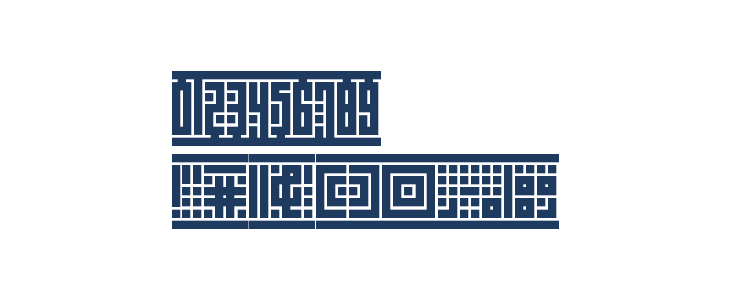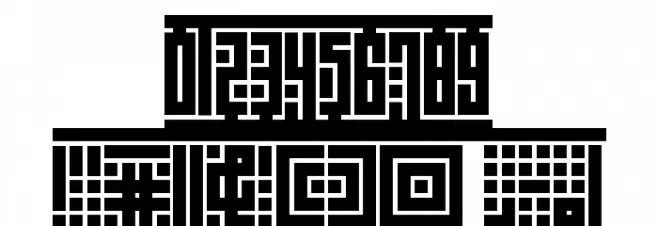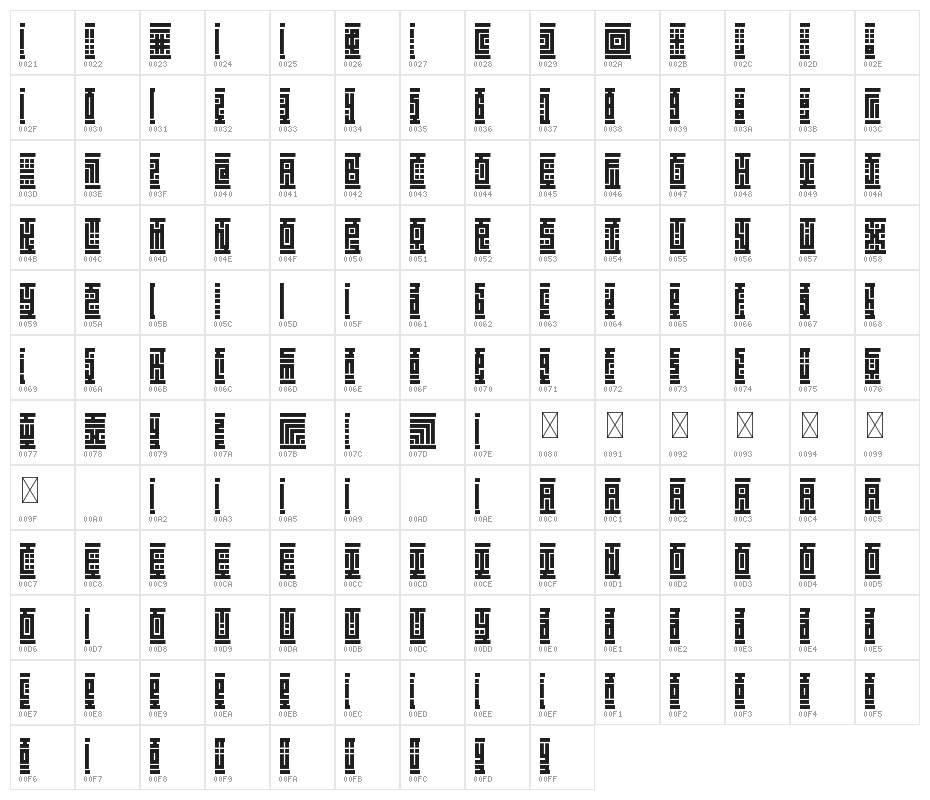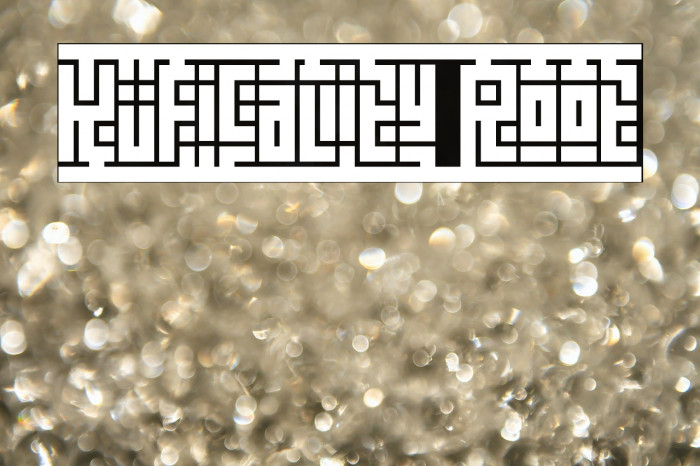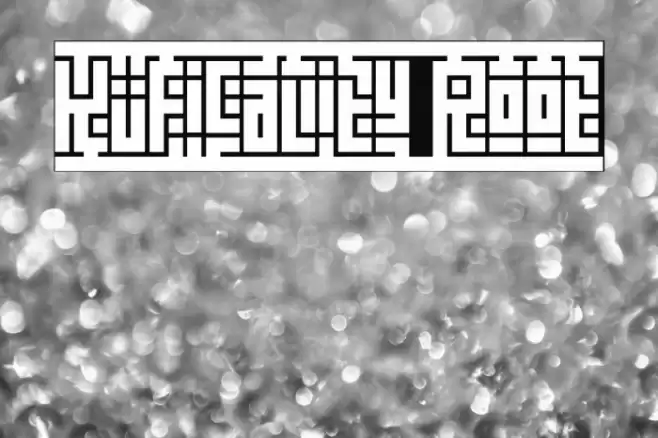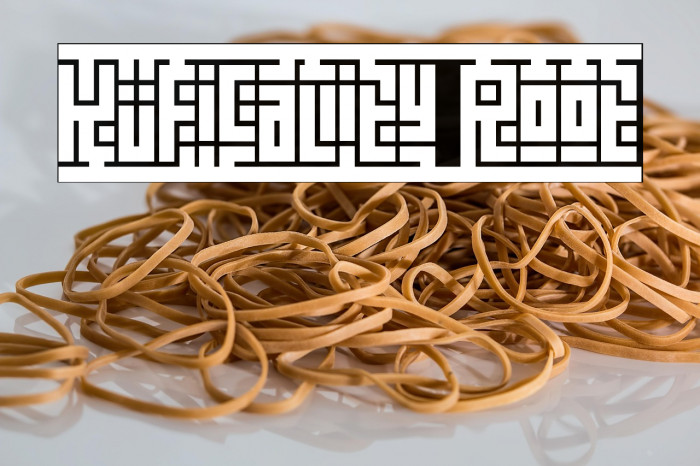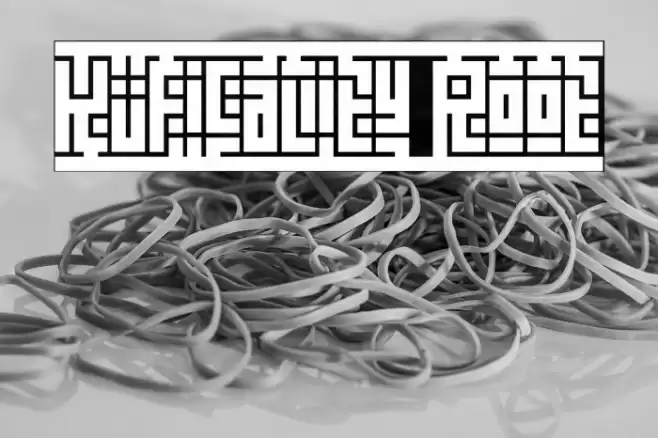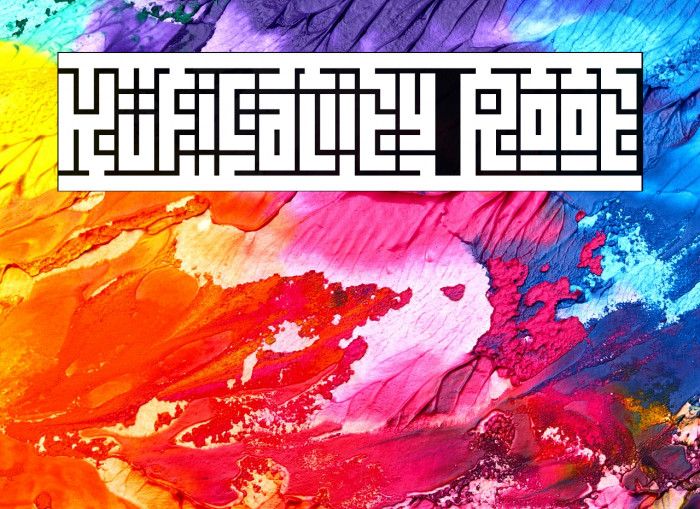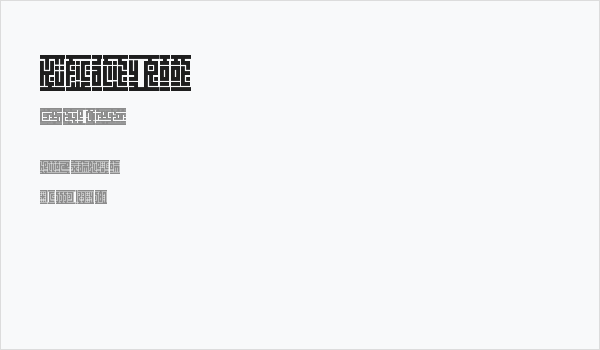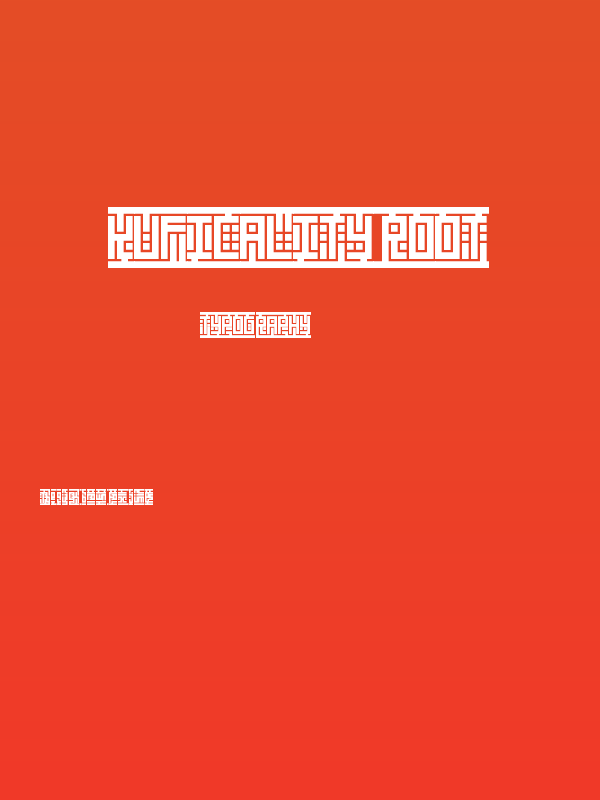
Kuficality Root Font
Kuficality Root Description
This font features a highly geometric and structured design, reminiscent of ancient Kufic script. Each character is composed of bold, straight lines and right angles, creating a maze-like appearance. The uniformity in line thickness and the grid-like arrangement give it a modern yet historical feel. The uppercase and lowercase letters maintain a consistent style, with minimal differentiation in size and shape. Numbers and special characters follow the same intricate pattern, ensuring a cohesive look across all glyphs. This font's unique style makes it stand out, offering a blend of tradition and modernity.
| Use Case | Logos, Posters, Artistic Projects |
| Proposed Projects | Ideal for artistic projects, branding, logos, and posters that require a distinctive and historical aesthetic. |